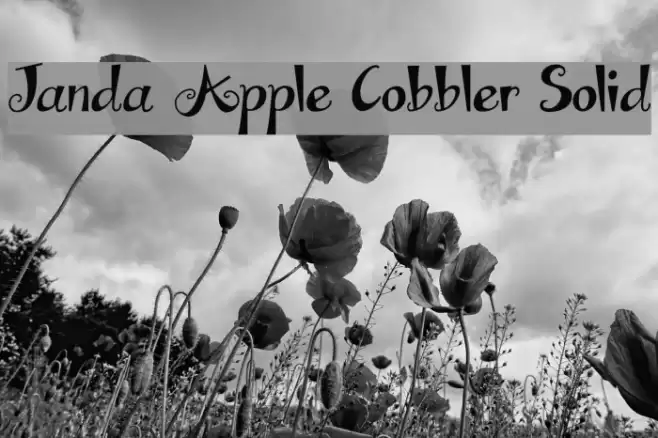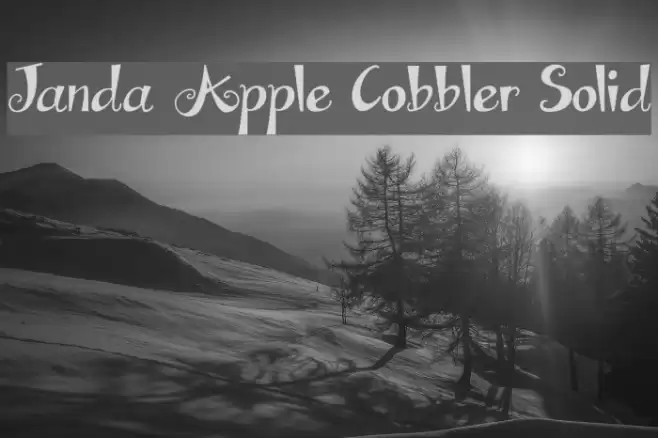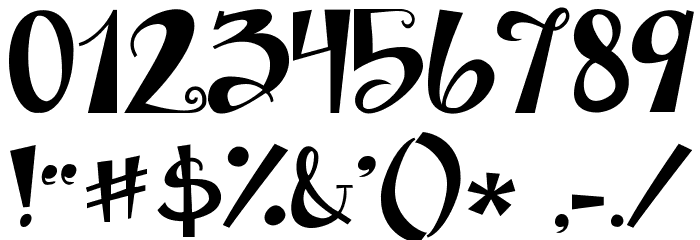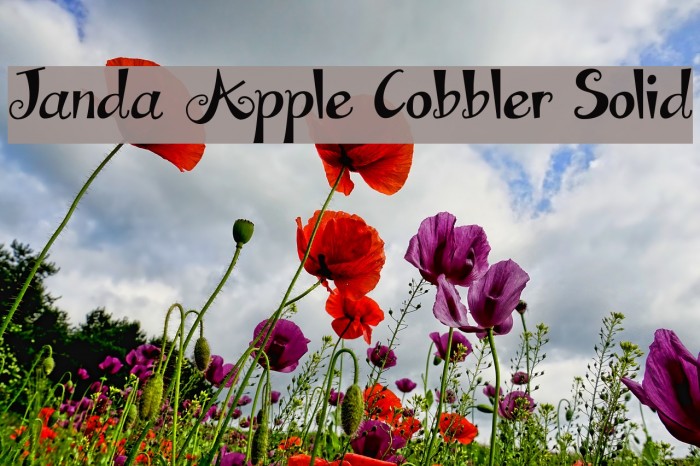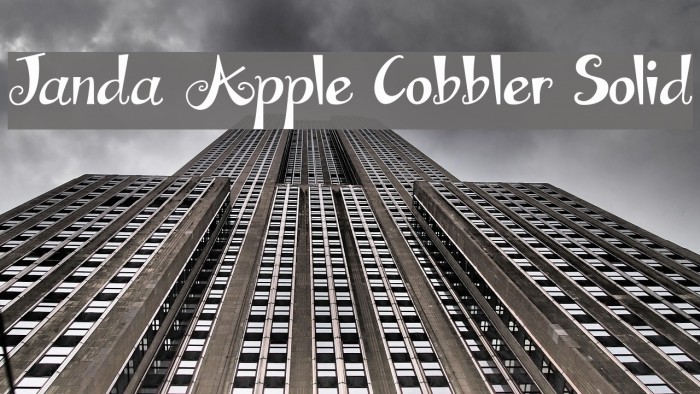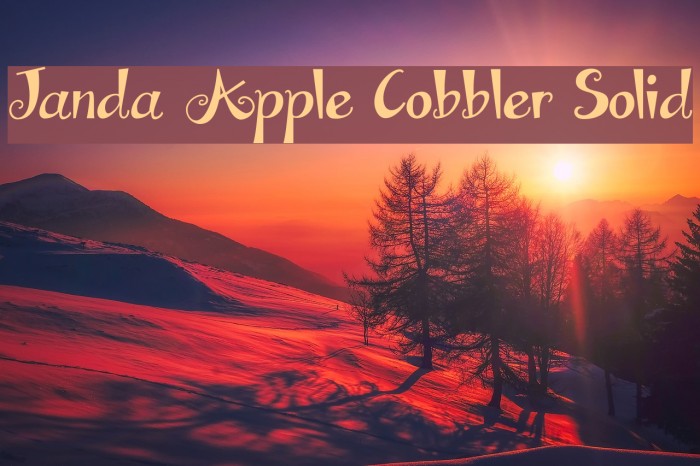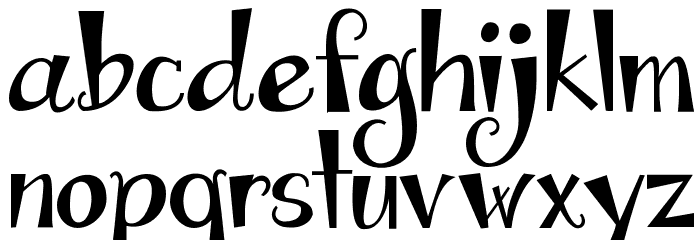
Janda Apple Cobbler Solid Font
Janda Apple Cobbler Solid Description
This playful and whimsical font features a unique blend of bold and curvy elements, creating a lively and engaging appearance. The uppercase letters are characterized by their exaggerated curves and swirls, adding a touch of fun and creativity. The lowercase letters maintain a similar playful style, with some characters featuring distinctive loops and curls. The numbers are bold and dynamic, complementing the overall style of the font. Special characters are designed with the same whimsical flair, making this font perfect for projects that require a touch of personality and charm.
A playful and whimsical font with bold, curvy elements and creative swirls from Uncategorized fonts.
- Proposed Projects: Ideal for children's books, playful branding, party invitations, and creative posters.
- Overall Style: Playful, Whimsical
- Use Case: Headlines, Logos, Invitations